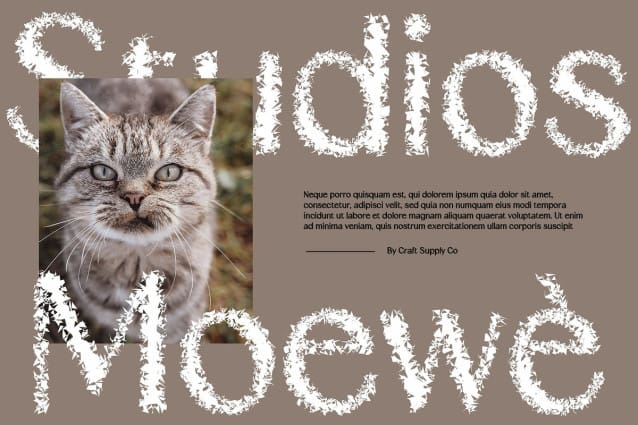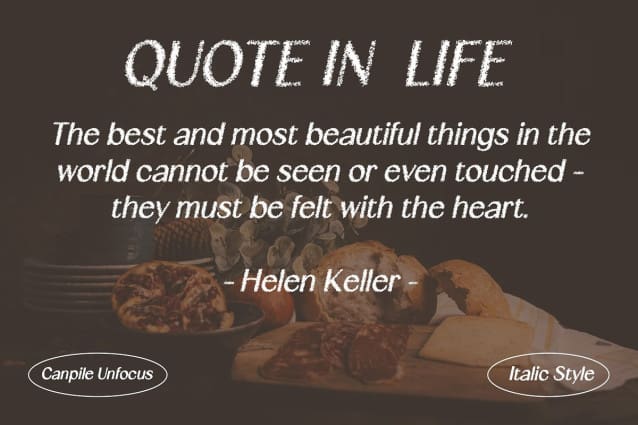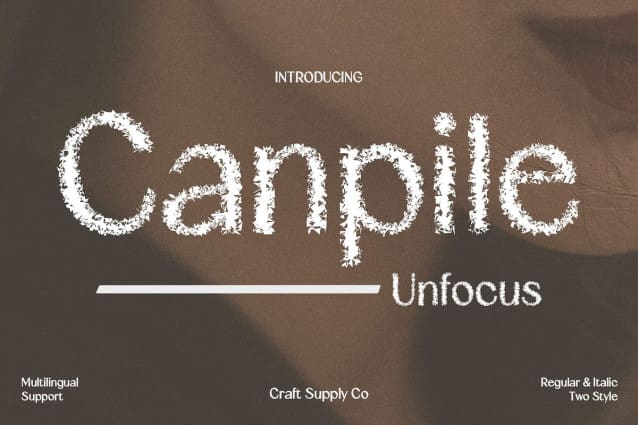
Canpile Unfocus Font
Canpile Unfocus Font: Embracing Disorder in Display Typography. Unconventional Display Typeface Canpile Unfocus breaks the norms of traditional display fonts with its sans-serif, high-contrast design. Embracing chaos, it offers a unique and disruptive visual experience.
High Contrast, Unfocused Effect With its high contrast and unfocused effect, This font challenges the notion of order in typography. Each character appears slightly distorted, adding an element of disorder and intrigue.
Perfectly Disheveled for Display Tailored for display purposes, This font thrives in contexts where boldness and unpredictability are desired. It’s an ideal choice for grabbing attention and making a statement.
Versatile Application Despite Disorder Despite its chaotic appearance, This font remains versatile in application. Whether used in advertising, branding, or digital design, its disruptive style adds a touch of boldness to any project.
Embracing Chaos This font defies convention with its sans-serif, high-contrast design and unfocused effect. While it may appear disorderly, it offers a bold and disruptive visual experience that commands attention in any display setting.